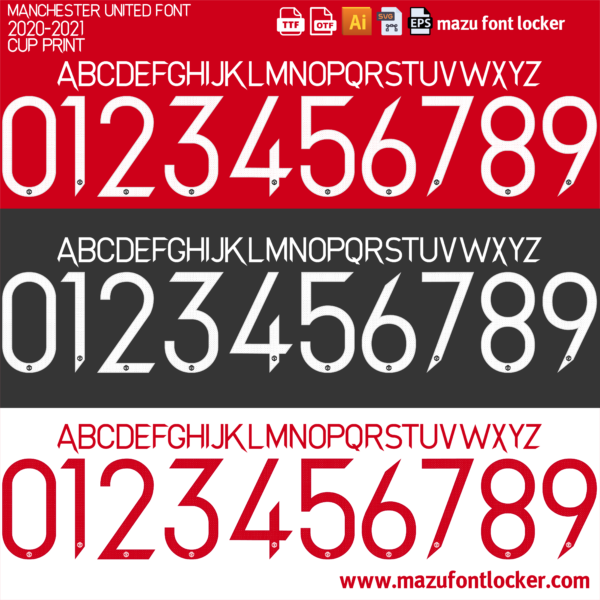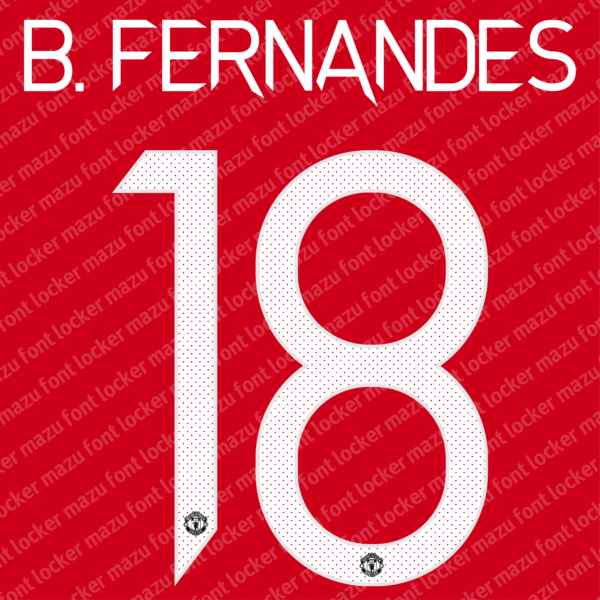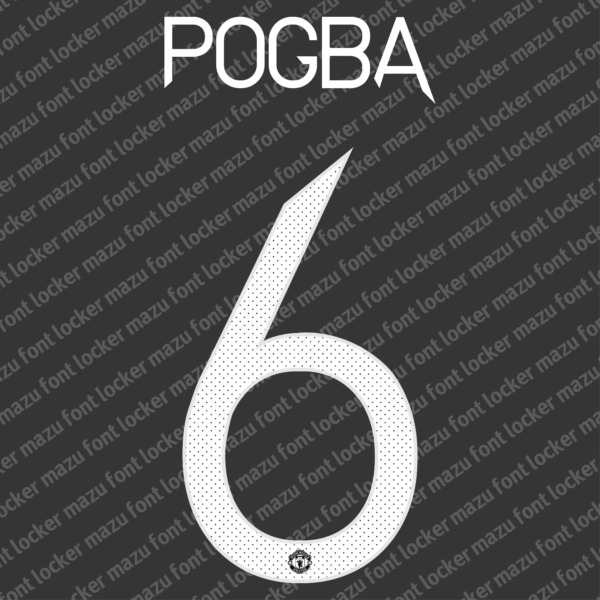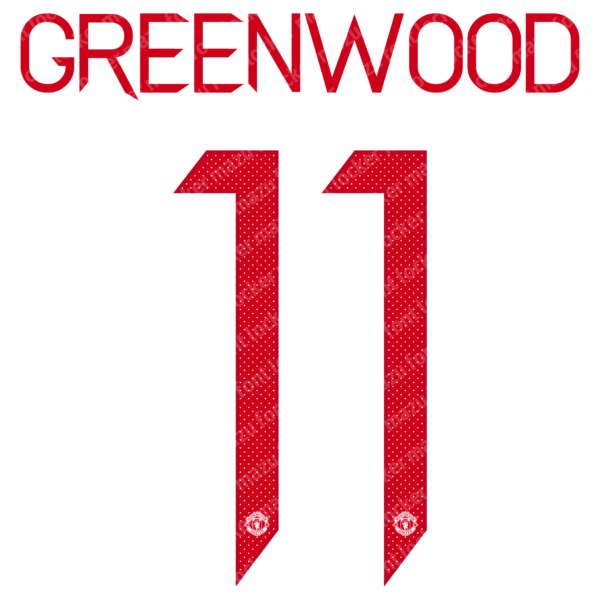
Manchester United 2020-2021 Font Vector – Bold Solskjær Era
This font captures the commanding, historic, and precision-crafted lettering that perfectly reflects Manchester United’s global giant identity, proud English heritage, winning mentality, and rich football excellence — delivering unmatched authenticity, premium quality, explosive energy, and supreme Premier League power for professional jersey mockups, dynamic football graphics, premium sports branding, passionate fan creations, and high-end design projects.
Manchester United 2020-2021 Font Vector – Legendary Red Typeface
The Manchester United 2020-2021 Font Vector is a premium typeface that accurately recreates the official match lettering worn by Manchester United during the 2020-2021 season. This high-quality vector font kit captures the bold, classic, and instantly recognizable typography that perfectly complements the club’s iconic red identity and rich heritage.
Designed for professional designers, football enthusiasts, and passionate Manchester United supporters, the Manchester United 2020-2021 Font Vector delivers exceptional authenticity for creating realistic jersey mockups, football merchandise, social media graphics, match posters, and custom fan artwork. Every character has been carefully recreated to match the historic visual style associated with one of the world’s biggest football clubs.
This font stands out thanks to its precise vector construction and authentic club styling. Every letter and numeral has been meticulously recreated to match the official shirt lettering used throughout the 2020-2021 Premier League and European campaign. Whether you’re producing professional kit templates or creating eye-catching football content, the Manchester United 2020-2021 Font Vector delivers a genuine match-ready appearance.
The lettering featured in the Manchester United 2020-2021 Font Vector combines clean geometric lines with powerful modern proportions. The result is a premium and highly readable typeface that reflects Manchester United’s proud tradition, global fanbase, and never-ending ambition.
- Complete uppercase A–Z alphabet and numbers 0–9 in authentic Manchester United 2020-2021 style
- Includes authentic Premier League badge glyph placement beneath player numbers
The Manchester United 2020-2021 Font Vector is an independently designed typeface package inspired by the official shirt lettering worn during the 2020-2021 season. It has been carefully recreated for football enthusiasts, graphic designers, collectors, and creators producing custom jersey concepts, football artwork, and fan-made projects.